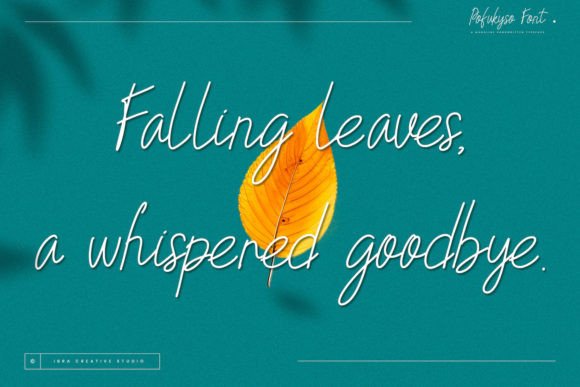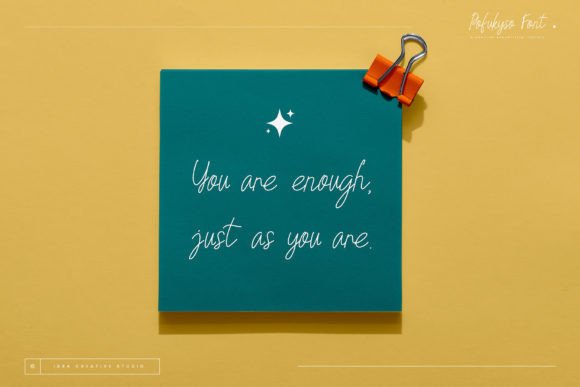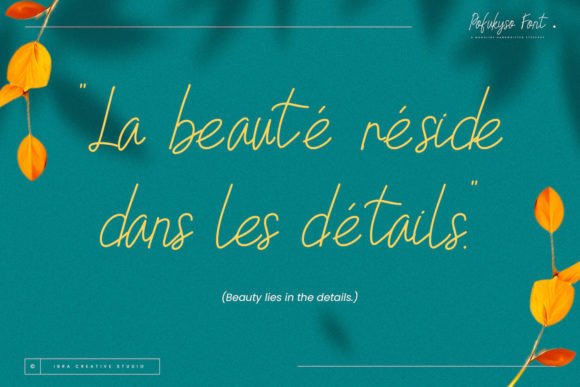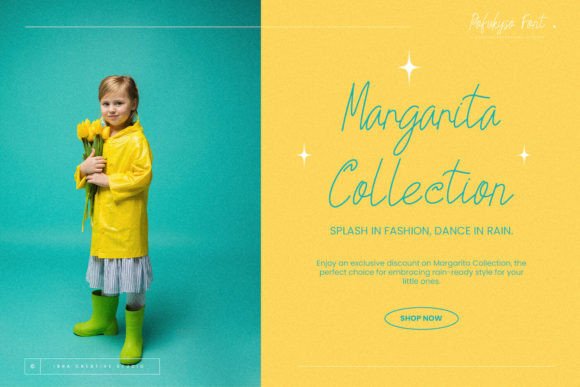
Introduction to Pofukyso Font
Have you ever stared at a blank page, feeling stuck and unsure of where to start your next creative project? For designers, this moment is all too familiar. But what if you had the perfect tool to spark inspiration and bring your ideas to life? Enter the Pofukyso Font, a stunning monoline handwritten typeface that’s about to become your new design BFF.
With its effortless blend of simplicity and whimsy, Pofukyso Font is a game-changer for designers seeking high-quality typography for their projects. Whether you’re working on a free download or a paid design resource, this versatile font is sure to elevate your work with its transparent background and seamless integration into any design application.
Key Features of Pofukyso Font
- This high-quality font features a transparent background, allowing for seamless integration into various design elements.
- This unique font is designed to add a touch of elegance and sophistication to any creative project, making it a valuable design resource.
- With its high-quality design and transparent background, Pofukyso Font is an excellent choice for designers looking for a versatile and stylish font.
Honest Review: Pofukyso Font
As a designer, I’m always on the lookout for high-quality design resources that can help me bring my creative projects to life. Recently, I came across the Pofukyso Font, which I was excited to try out.
Firstly, I was impressed by the free download option, which made it easily accessible for me to integrate into my design workflow. The font itself has a unique, modern feel to it, which can be a great asset for any design project.
What works well with the Pofukyso Font is its flexibility. It can be used for a wide range of creative projects, from logos and branding materials to digital products and advertising campaigns. Additionally, the font has a transparent background, which makes it easy to use in conjunction with other design elements.
However, I did notice a few limitations with the Pofukyso Font. For example, the font selection is limited, which may not be ideal for designers who need a wide range of font options for their projects.
Overall, I would say that the Pofukyso Font is a solid design resource that can be useful for many creative projects. While it has its limitations, it’s definitely worth checking out, especially for those on a budget or looking for a free design solution.
The Pofukyso Font is a versatile design resource that can be used in a variety of creative projects, including graphic design, digital art, and web design. Some common use cases include:
- Creating eye-catching titles and headings
- Designing logos and brand identities
- Adding a creative touch to presentations and documents